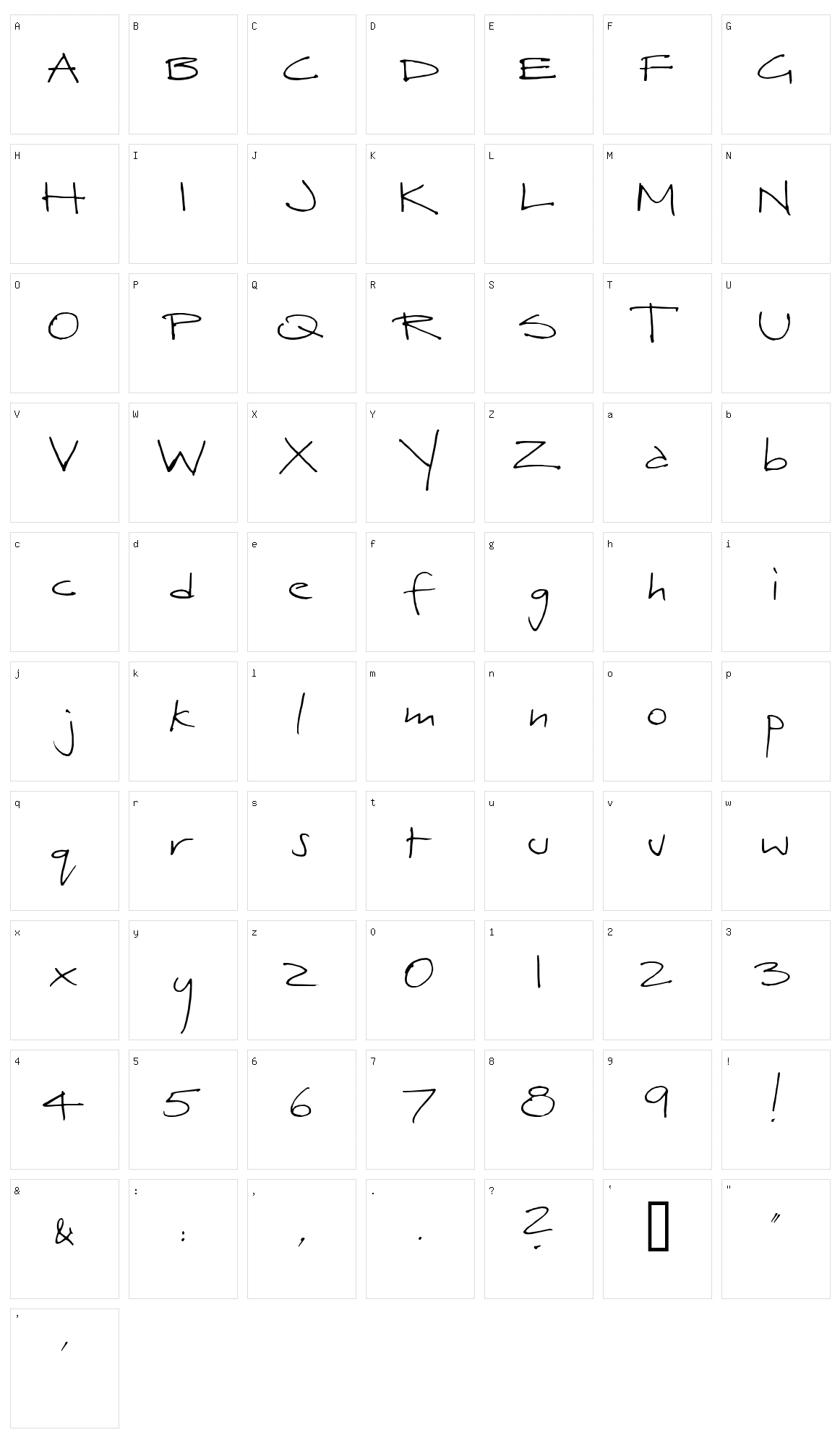
Herbert
Designed by: Uddi Uddi
Description: The free font Herbert is carefully designed by Uddi Uddi, showcasing a thoughtful balance of creativity and usability and falls under the Script font style. When you download the ZIP file, it contains only 18.54 KB of font files, making it lightweight and quick to download. Please review the license details below to understand permitted usage and distribution rights. If license information is not available, we recommend using this font for personal projects only or contacting the author directly for commercial usage permissions.